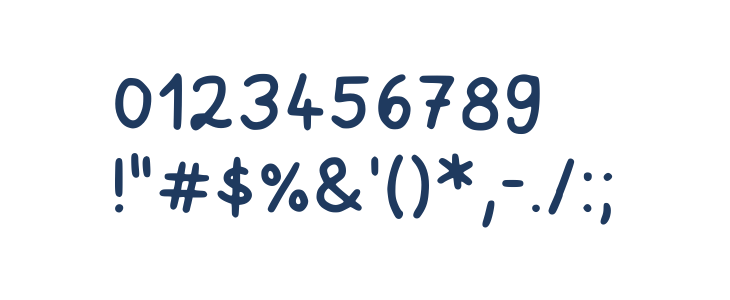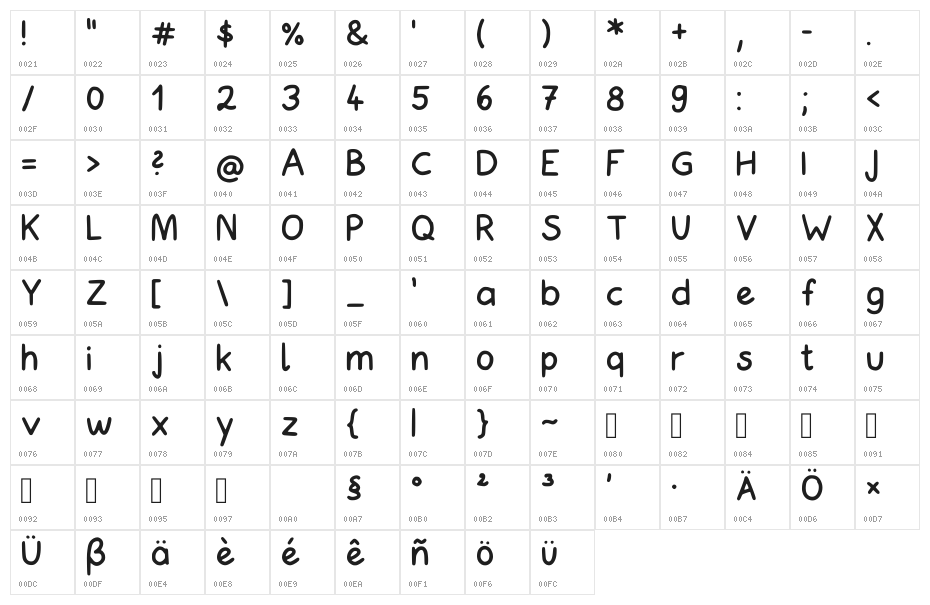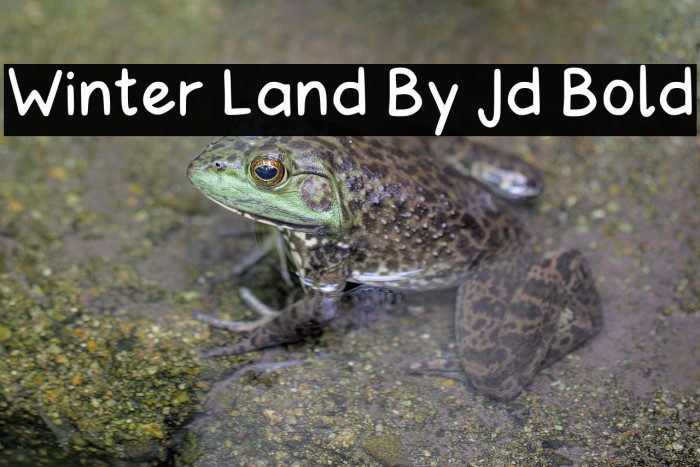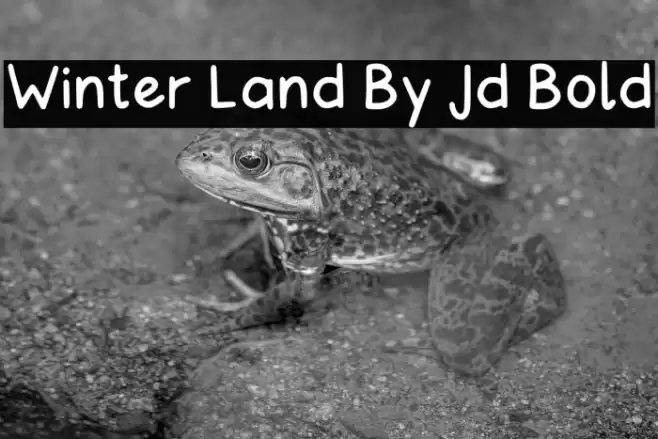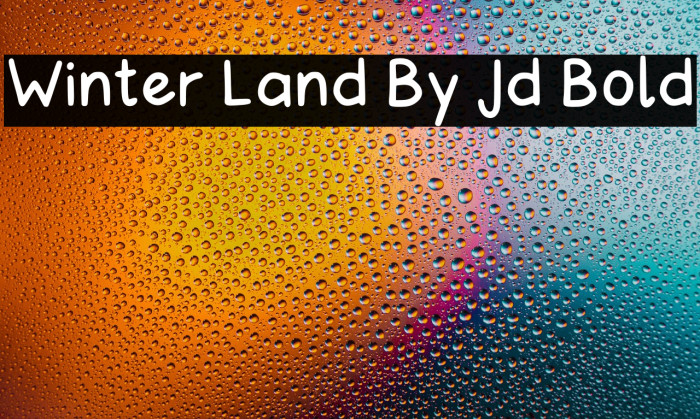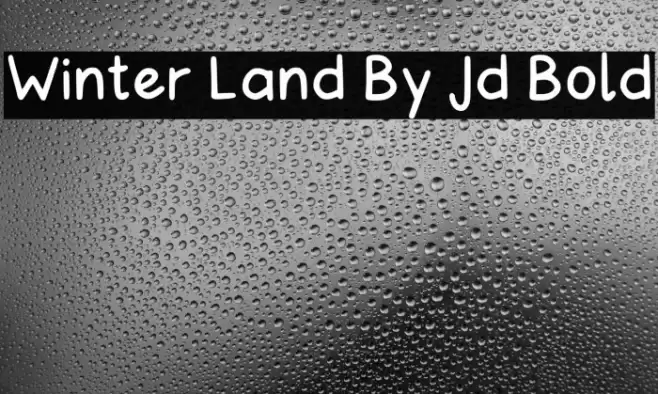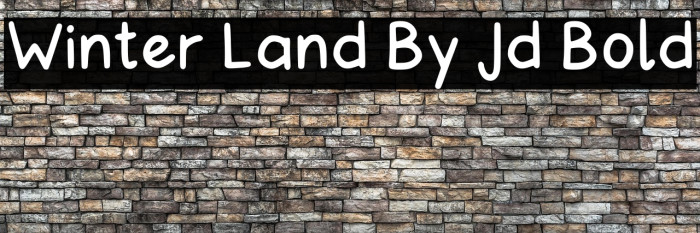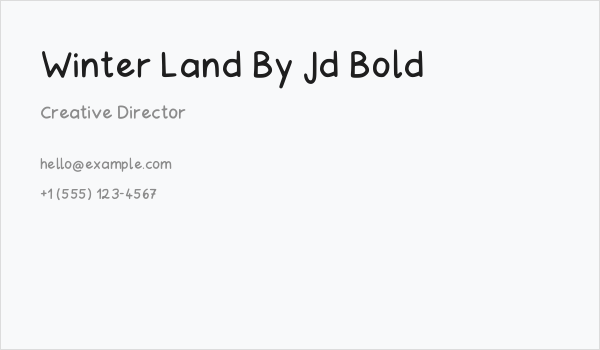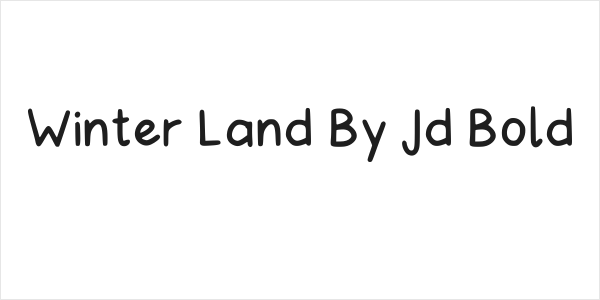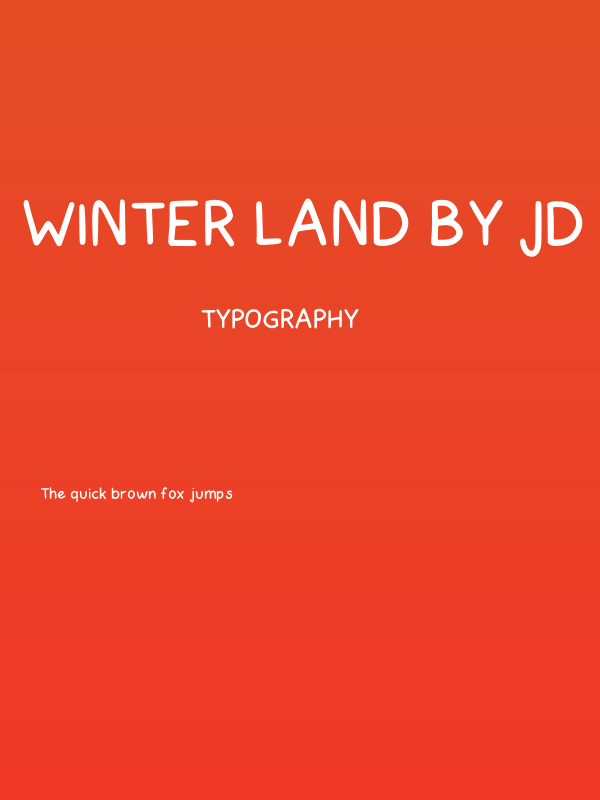
Winter Land By Jd Bold Font
Winter Land By Jd Bold Description
This playful and bold font features rounded, hand-drawn characters that exude a friendly and approachable vibe. The letters are evenly spaced, with a consistent stroke width that gives it a uniform appearance. Its informal style makes it ideal for projects that require a touch of whimsy and creativity. The font includes a full set of uppercase and lowercase letters, numbers, and a variety of special characters, making it versatile for different uses. Its boldness ensures readability while maintaining a casual and fun aesthetic.
| Proposed Projects | Ideal for children's books, greeting cards, playful branding, and casual invitations. |